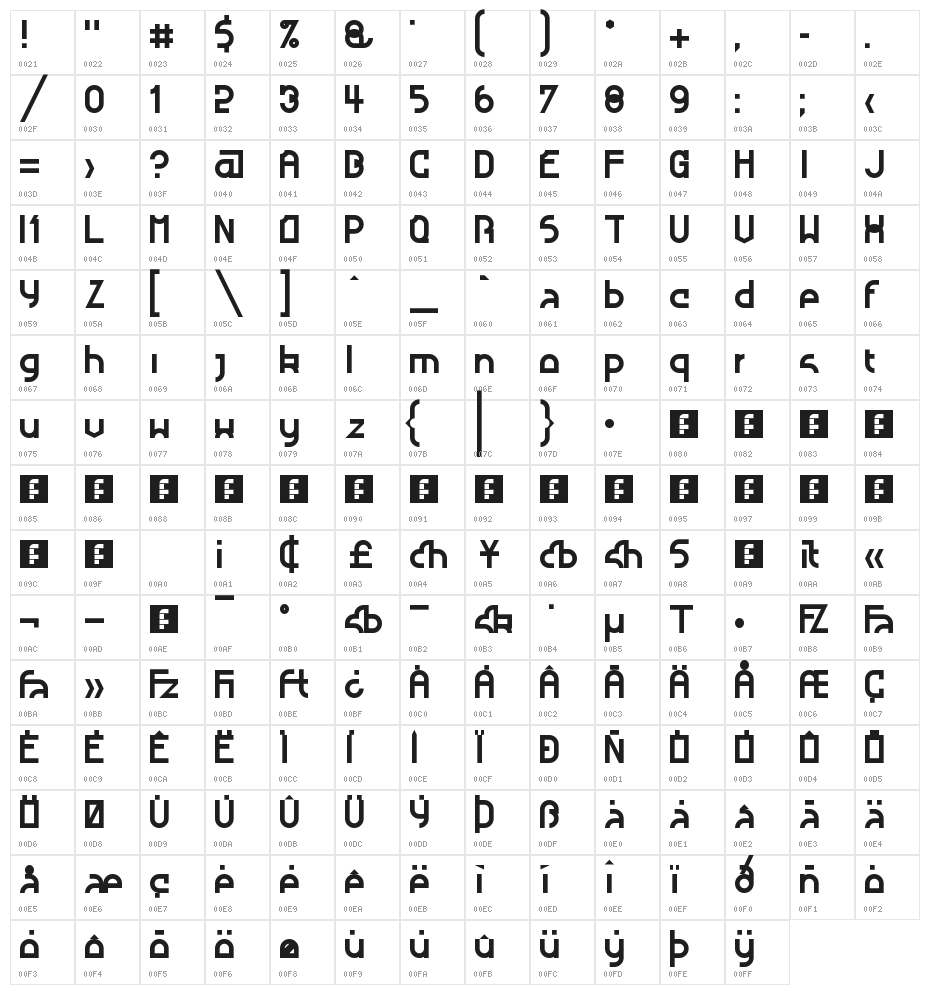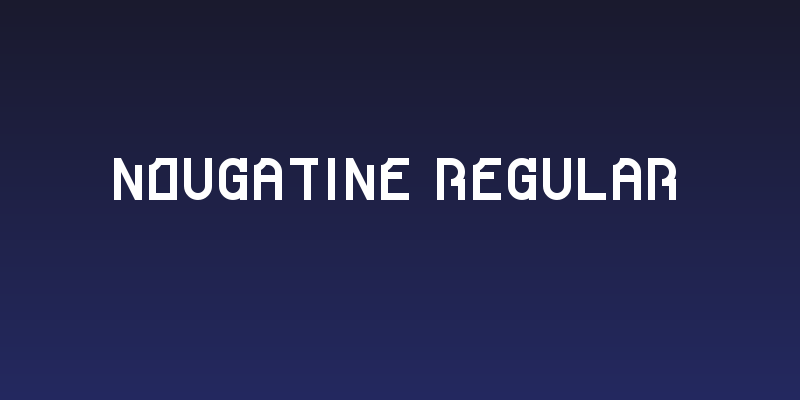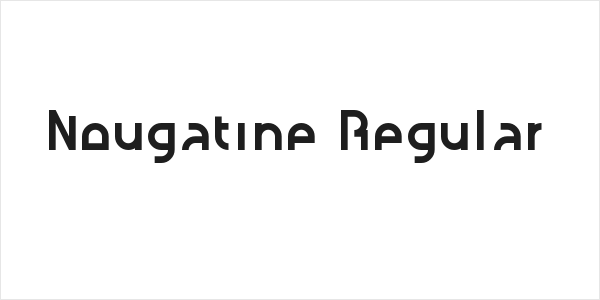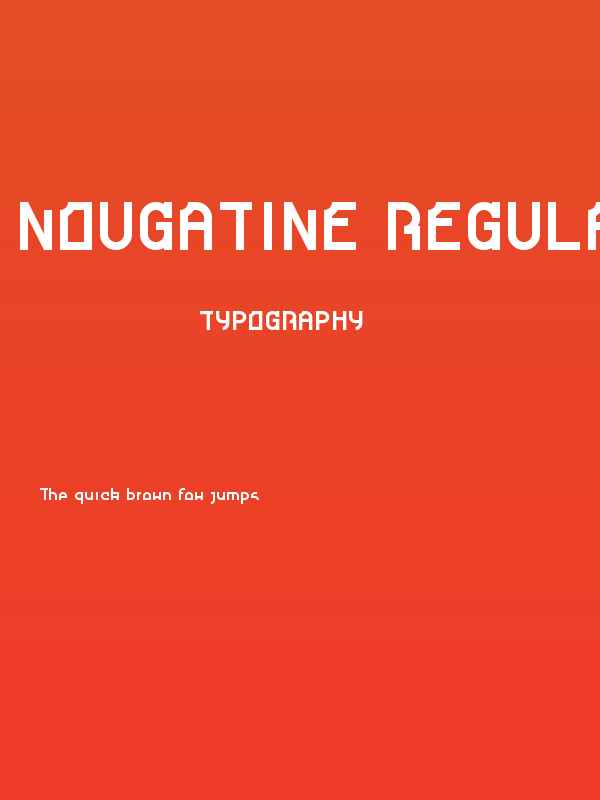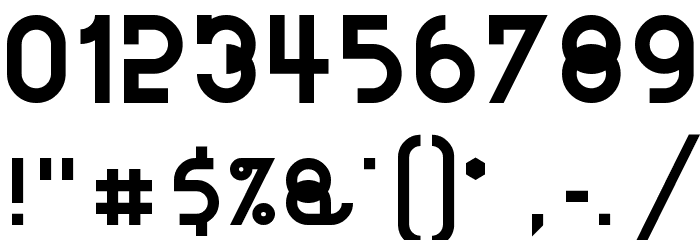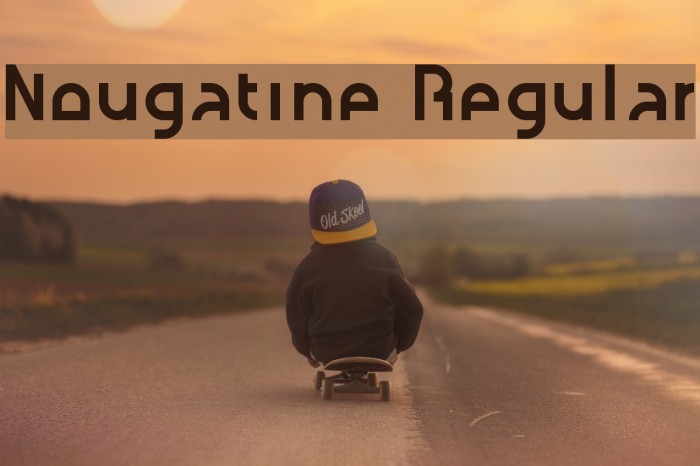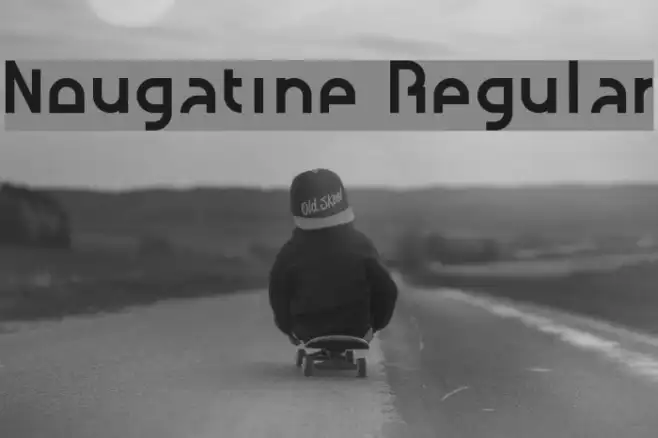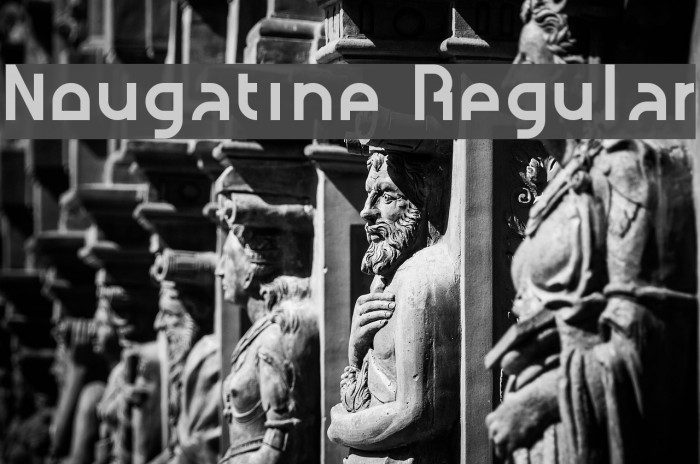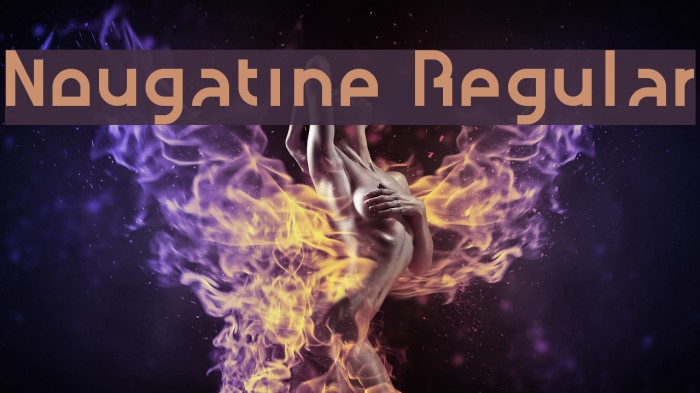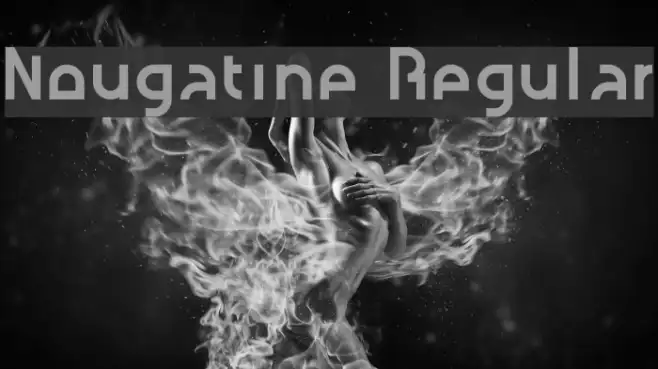
Nougatine Regular Font
Nougatine Regular Description
This font features a bold, geometric style with a modern twist. The characters are constructed with clean, straight lines and sharp angles, giving it a futuristic and technical appearance. The uppercase letters are particularly striking, with a uniform height and width that create a strong visual impact. The lowercase letters maintain the geometric theme, with some unique curves and cuts that add character and distinction. The numerals are consistent with the overall design, offering a clear and readable format. Special characters are well-integrated, maintaining the font's cohesive look. This font is ideal for projects that require a modern and bold aesthetic.